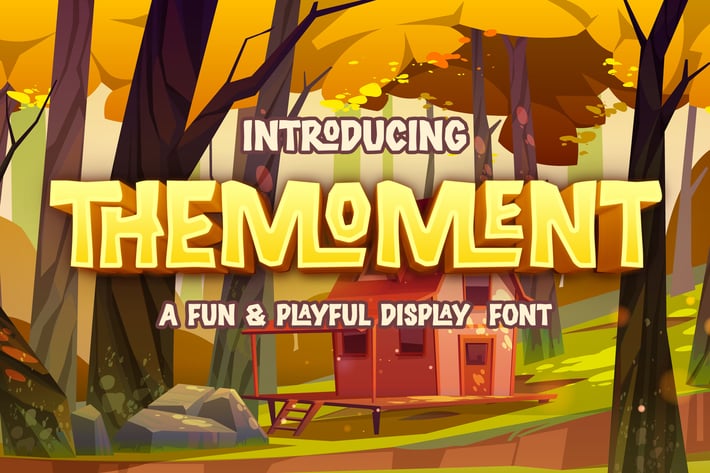
themoment - Playful Display Font
themoment is a Playful Display Font that will make your designs look modern, unique and fun with 23 Ligatures.
+ Ligatures